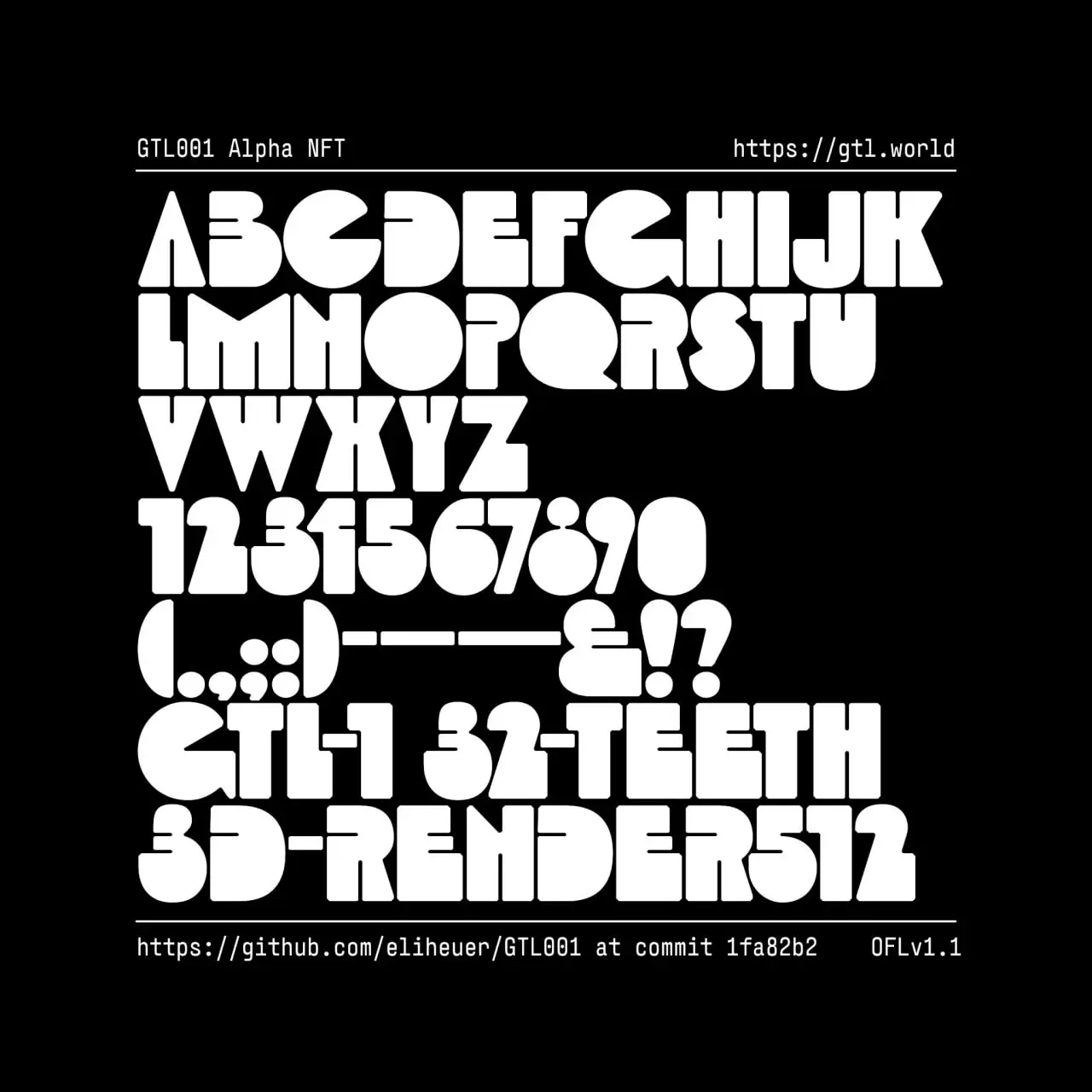
Gtl001 Font By Eli Heuer
The Gtl001 Font by Eli Heuer is a versatile typeface that combines modern aesthetics with classic elegance. This font is designed to suit a variety of applications, making it ideal for branding, logos, web design, and print materials.
• Perfect for creating eye-catching logos and branding materials.
• Utilize in web design for a clean and professional look.
• Ideal for print projects such as brochures, business cards, and posters.